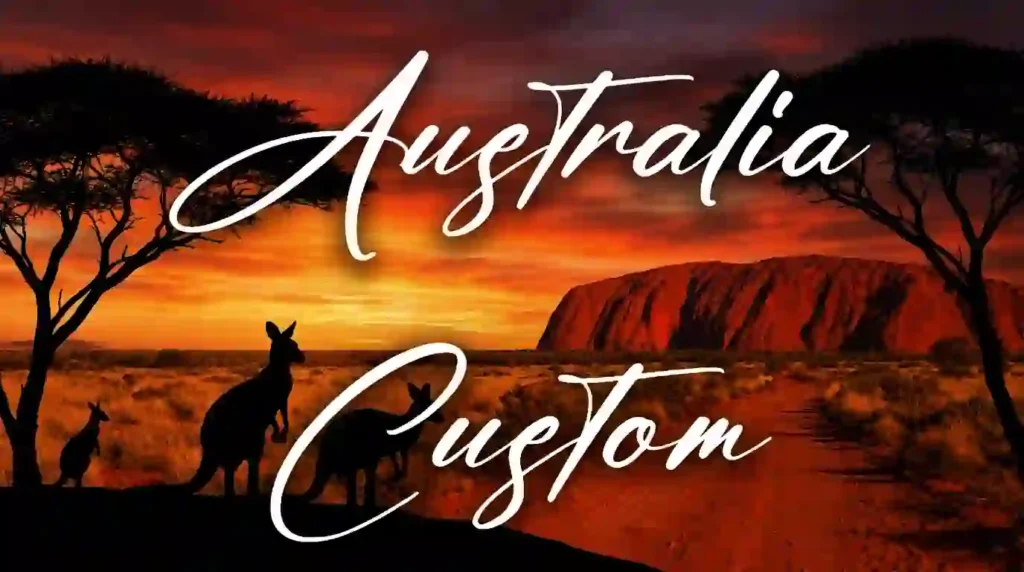
Australia Custom Font
Australia Custom is a calligraphy font made by Perspectype Studio. The letters have the smooth movement of real pen lettering, which is why even a single name looks special in it. The free download includes two styles, and you can try every one of them with your own text in the preview above.
Australia Custom covers the full alphabet in upper and lowercase, plus all ten numbers, so you can set names, dates and prices without switching fonts. Common punctuation such as &, !, ? and @ is included as well. It also has the accented letters you need for Spanish, French, German, Portuguese and Italian.
Australia Custom is a natural fit for wedding invitations, certificates and elegant quotes. Script fonts read best in short bursts, so keep it to names, titles and one-line quotes. Skip all caps: script capitals are drawn to start a word, not to fill one. Because the family has more than one style, you can mix them in a single design for headings, subheadings and highlights.
Yes. Australia Custom includes the accented letters needed for Spanish, French, German, Portuguese and Italian, so it works for more than just English.